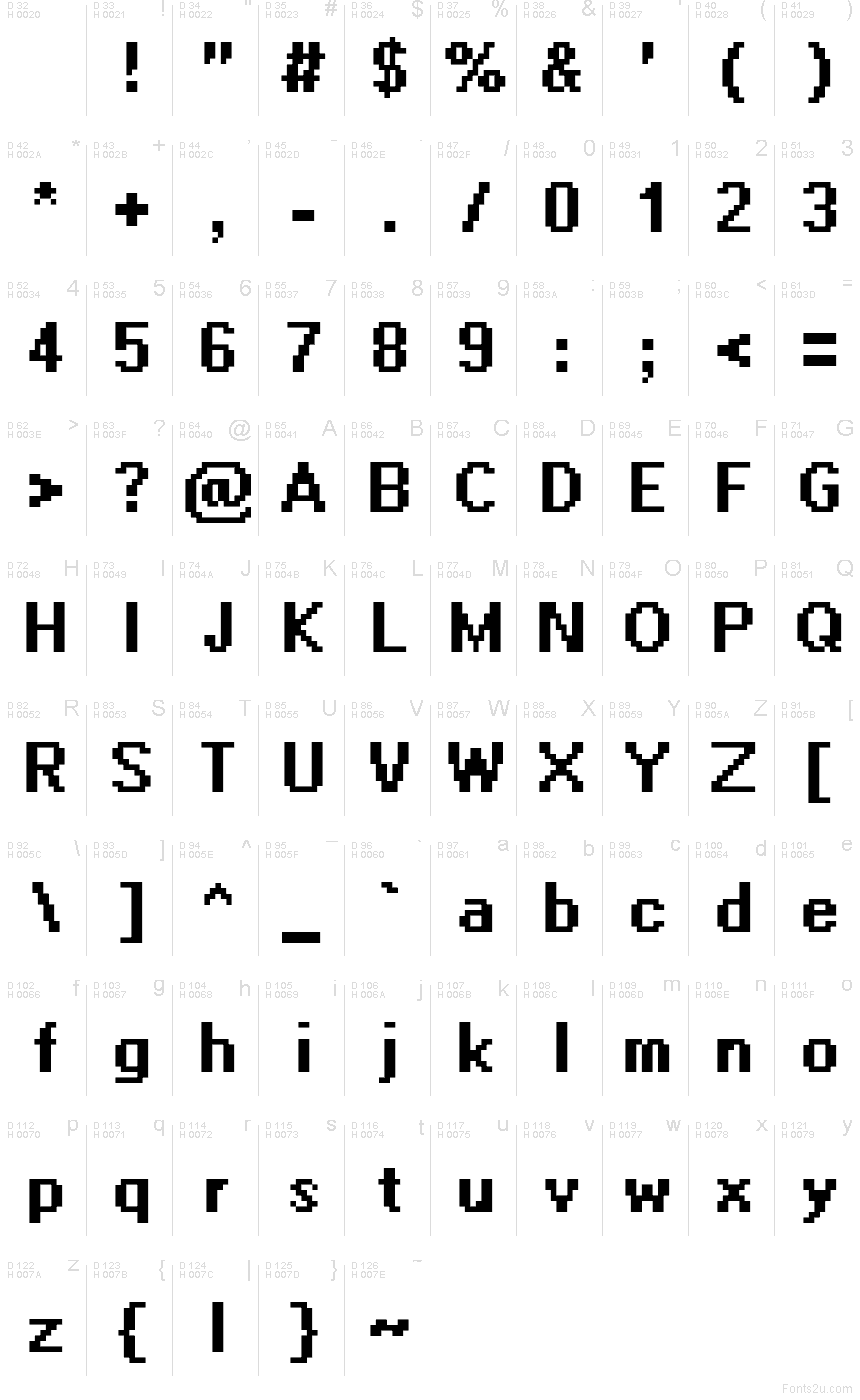
Ari-W9500 Bold font by Catterio Sylt is a free pixel bitmap typeface with a chunky, almost monolithic rhythm that feels ripped straight from a glitchy arcade screen. The tall, blocky letters stack like clean digital bricks, with sharp corners and tight spacing that give every word a solid, machine-stamped weight. At larger sizes, the grid structure becomes almost architectural, turning simple text into a bold piece of pixel art.
Using Ari-W9500 Bold, you can give game titles, UI overlays, stream graphics, techno posters, flyers, and album covers a distinctly retro-digital voice that still reads clearly. This free font shines on dark backgrounds where the bright blocks feel almost backlit. Pair it with a thin geometric sans in small text, and keep Ari-W9500 for headlines or short phrases to let its crisp, 8-bit texture do the talking.
Designer description: <p>The bold weight of&nbsp;<strong>Ari-W9500</strong>.</p>